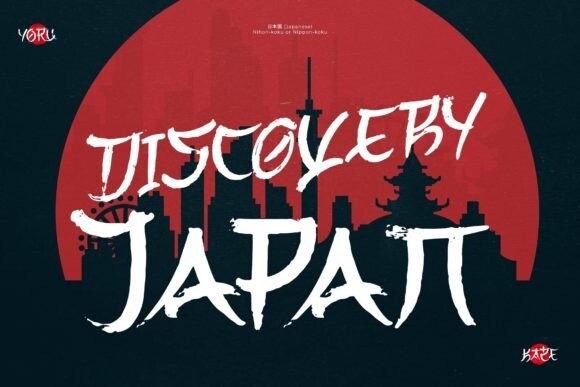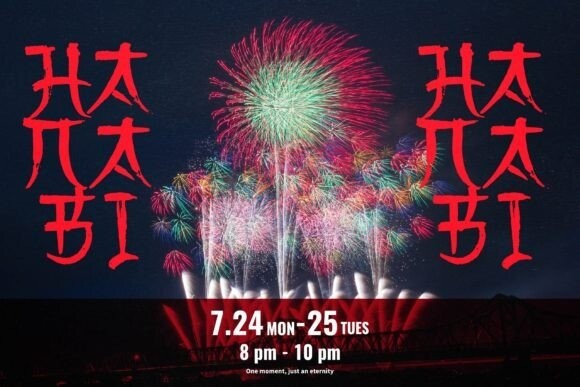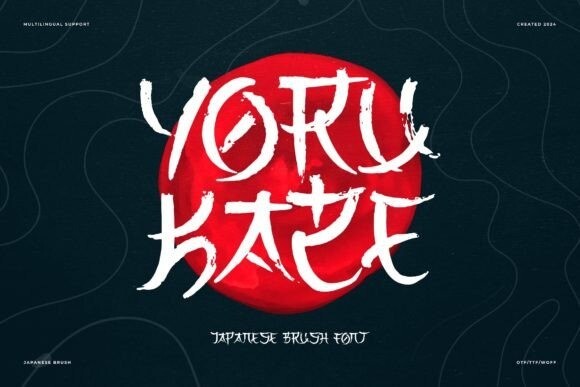
Yoru Kaze Font
Yoru Kaze Font is a Japanese brush font that has a bold, flowing style. It mimics the strokes of traditional Japanese calligraphy, giving a sense of movement and elegance. The font is ideal for designs that need an artistic or cultural touch.